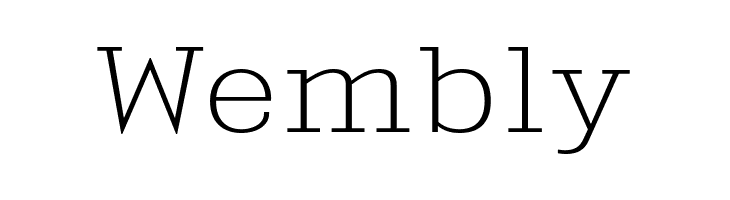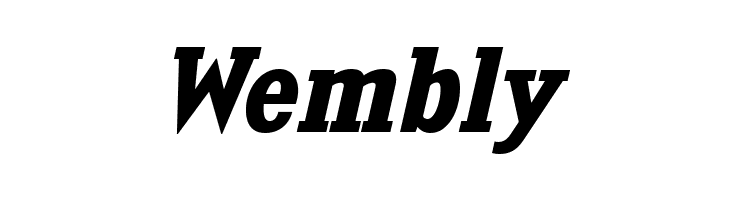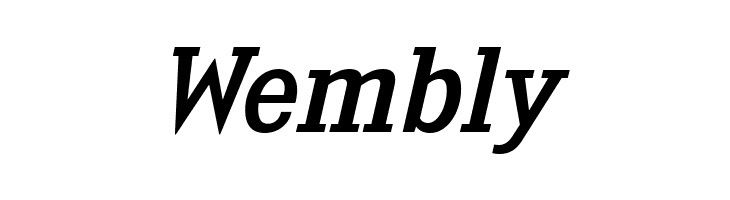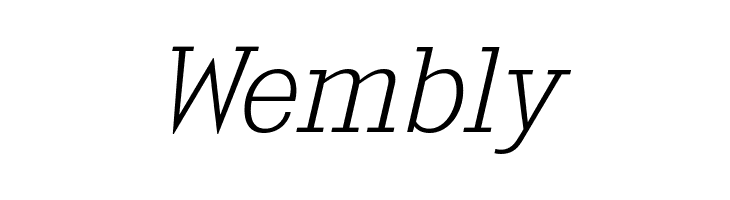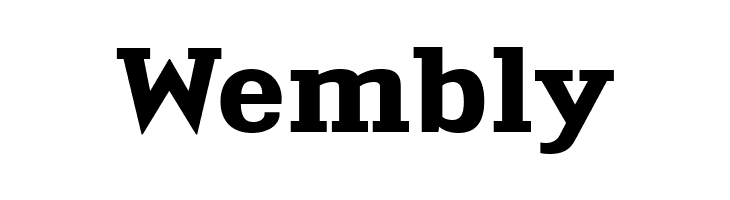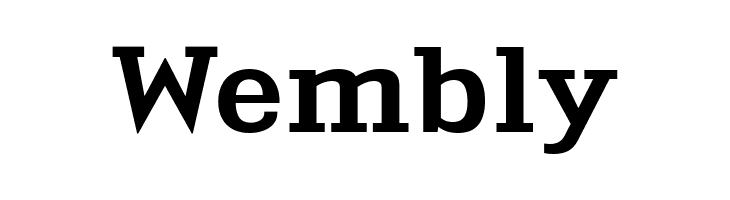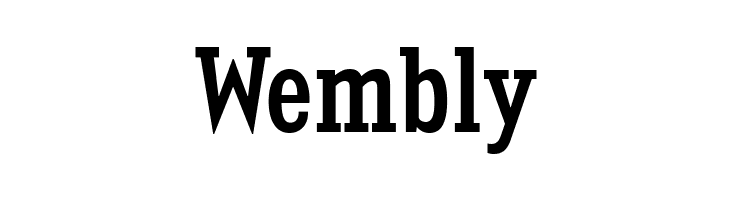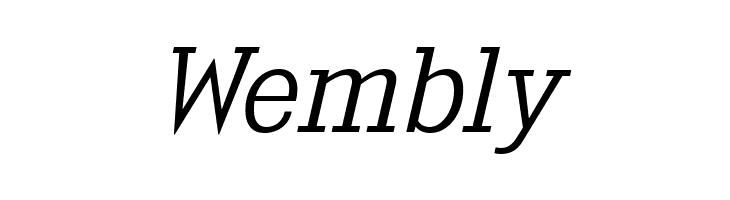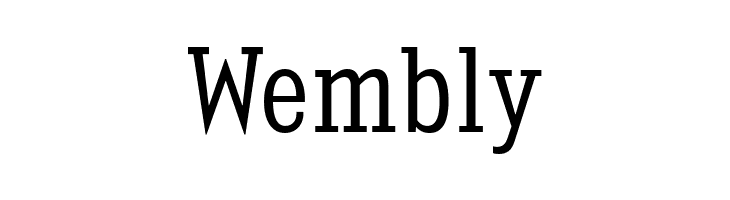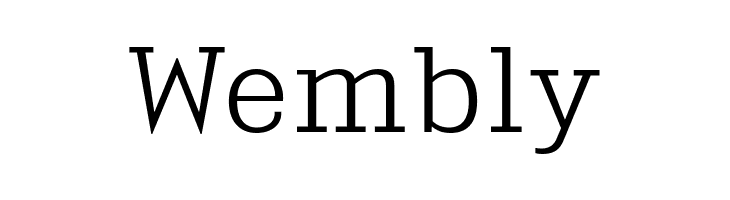
A refined serif font with elegant lines and balanced proportions.
Elegant serif font with an italic slant and moderate contrast.
An elegant serif italic font with smooth curves and a classic yet modern style.
A bold serif font with strong strokes and pronounced serifs, ideal for impactful designs.
A bold, slab serif font with a classic yet modern appeal.
A bold, slab serif font with strong, well-defined characters.
An elegant italic font with smooth lines and moderate contrast, perfect for classic and sophisticated designs.
An elegant and sophisticated italic font with thin, elongated strokes.
A classic serif font with modern elements, offering clarity and elegance.
A classic serif font with a modern twist, featuring elegant strokes and subtle serifs.
An elegant italic serif font with refined, elongated characters and a classic appeal.
A classic serif font with sharp serifs and a traditional, elegant style.
A clean, modern font with geometric structure and minimal contrast.
A bold, italic serif font with strong character definition and elegant serifs.
A bold serif font with strong strokes and pronounced serifs, ideal for impactful designs.
Elegant serif font with a refined italic style and thin, graceful strokes.
( MeCreativa - Michela Ferretti - www.mecreativa.com )
A decorative dingbat font with playful heart designs and whimsical elements.
( SSI.Scraps - Syukur Setiyadi - www.creativefabrica.com/designer/syukursetiyadi/ )
An ornate, swashed font with elaborate decorative elements.
( Sharkshock - Dennis Ludlow - www.sharkshock.net )
A bold, condensed font with strong, impactful uppercase letters.
Font by HammerBro101. For commercial use please contact the owner.
( Southype - Rodrigo Gonzalez - www.southype.com )
A collection of bold, clear astronomical symbols with a cosmic theme.
( Typodermic Fonts - Ray Larabie - www.typodermicfonts.com/ )
A bold, geometric sans-serif font with strong, angular lines.
( Typodermic Fonts - Ray Larabie - www.typodermicfonts.com/ )
Bold, italic font with angular lines and a dynamic, modern style.
( Typodermic Fonts - Ray Larabie - www.typodermicfonts.com/ )
A bold, italic font with a dynamic, geometric style.
( Typodermic Fonts - Ray Larabie - www.typodermicfonts.com/ )
A bold, italicized font with a modern, dynamic style.
( Typodermic Fonts - Ray Larabie - www.typodermicfonts.com/ )
A bold, geometric font with a strong and angular design.
( Typodermic Fonts - Ray Larabie - www.typodermicfonts.com/ )
A modern, angular italic font with geometric precision.